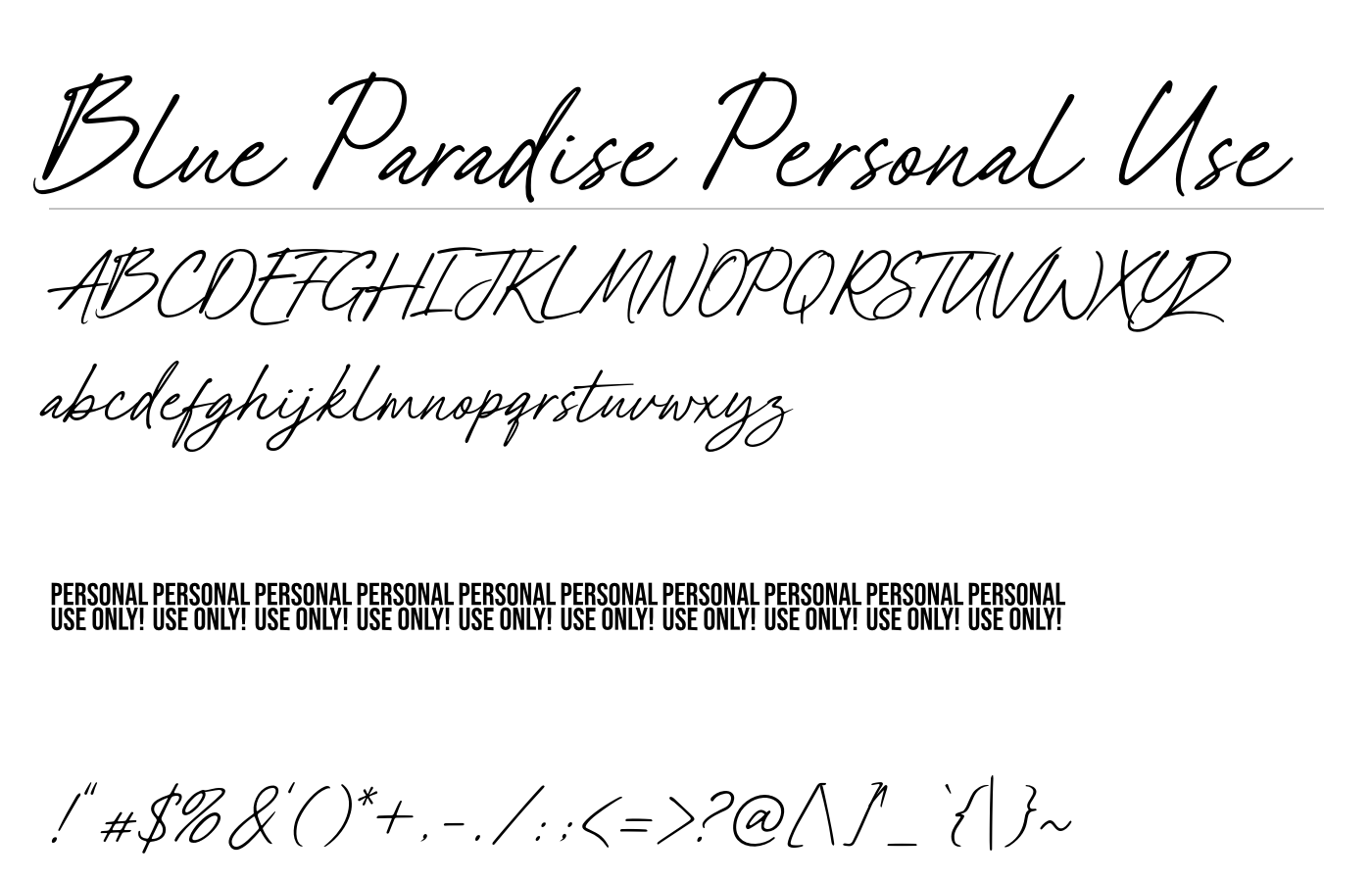
Blue Paradise Personal Use is an elegant, handwritten script font characterized by its thin, flowing strokes and casual yet refined style. Its tall, slightly irregular letterforms create a friendly and approachable feel, making it perfect for personal branding, invitations, and creative projects that seek a touch of sophistication with a relaxed vibe. This font works best in headlines and display uses where its fluidity and charm can truly shine.
Blue Paradise Personal Use Font
About Blue Paradise Personal Use Font